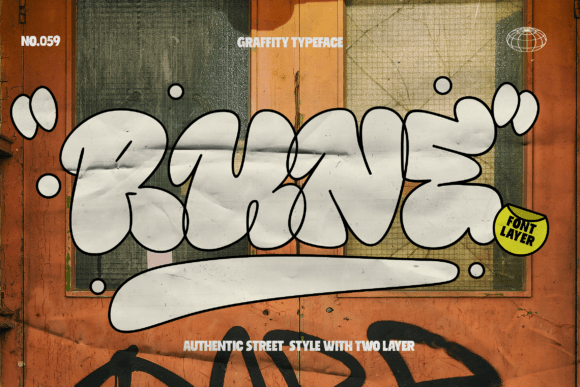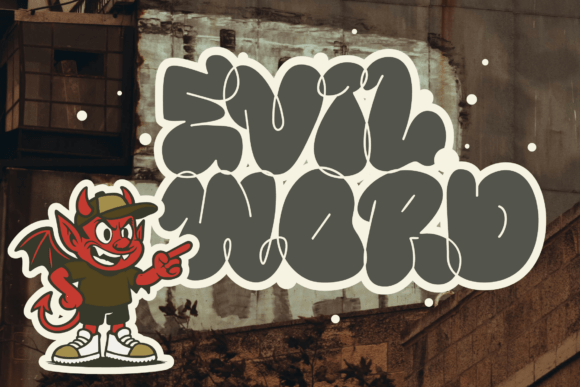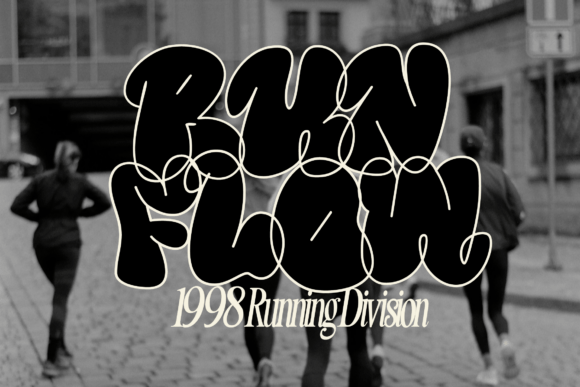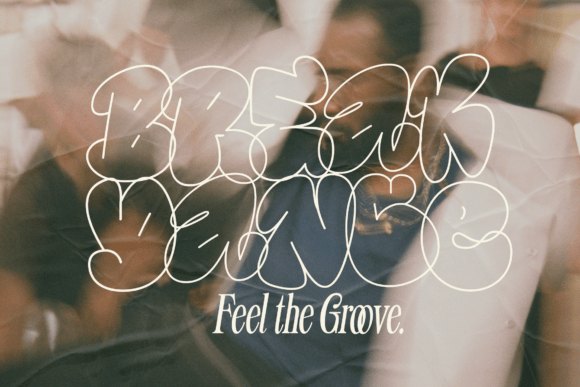
Rune Font
About the Rune Font
We are excited to introduce Rune Font, a must-have typeface for any serious designer. Introducing Rune, a unique graffiti-style font that embodies the boldness, rebellion, and creativity of street art culture.
Designed with layered flexibility (base and outline), Rune gives your artwork depth and versatility. Whether you’re crafting edgy visuals for a any designs, Rume delivers a raw, street-smart aesthetic that can’t be ignored.
Rune excels in headline applications, short impactful phrases, and logo design where its bold character makes a statement. It’s ideal for branding projects targeting a youthful, rebellious, or urban audience, particularly in contexts like streetwear apparel, music promotion, or edgy graphic novels. Avoid using Rune for body text or lengthy paragraphs; its strong forms and irregular letter spacing hinder readability in extended passages.
Consider pairing Rune with a clean sans-serif like Open Sans for a balanced contrast, allowing Rune to command attention while the secondary font ensures legibility in supporting text. For a more playful feel, a rounded geometric sans-serif could also work well. Alternatively, a refined serif font can offer unexpected sophistication and highlight Rune’s raw energy.
Rune’s core personality is bold, rebellious, and energetic. Its layered design adds depth and visual interest, but this also contributes to its unsuitability for applications requiring high levels of readability or minimalist simplicity.